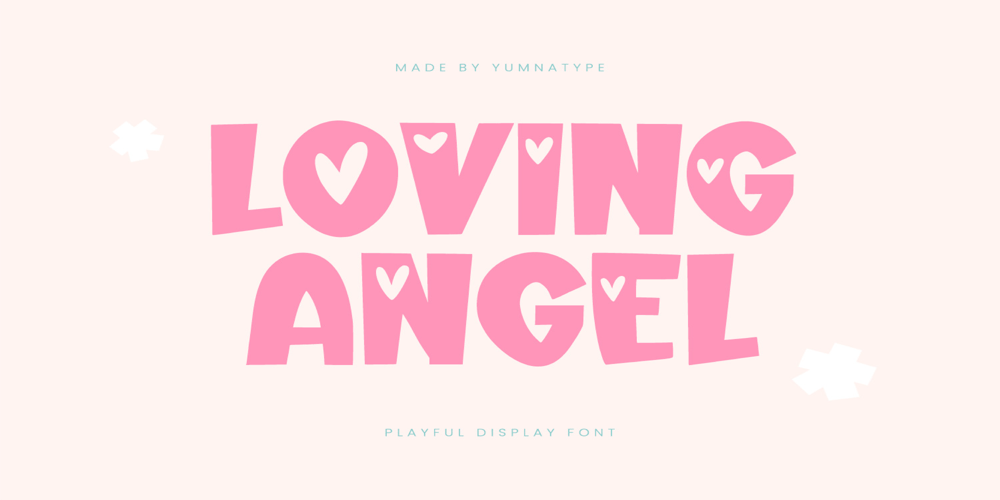
Loving Angel
Loving Angel font
Loving Angel Font Family was designed by Donis Miftahudin and published by Yumna Type. Loving Angel contains 1 styles and family package options. Introducing Loving Angel, a charming display font that embodies the warmth and innocence of celestial beings. Crafted with large letters, this font radiates joy and sweetness, making it the perfect choice for projects that seek to inspire love and positivity.Loving Angel enchants with its playful style and rounded shapes, evoking a sense of childlike wonder and innocence. Each letter is meticulously designed to capture the whimsy of angelic beings, with rounded forms that invite viewers to embrace the magic of the moment. With its thick weight and low contrast, Loving Angel commands attention and ensures that your message is conveyed with clarity and confidence. In addition, enjoy the features here.Features: Ligatures Multilingual Supports PUA Encoded Numerals and Punctuations Loving Angel fits in headlines, logos, posters, flyers, branding materials, greeting cards, print media, editorial layouts, and many more designs. Find out more ways to use this font by taking a look at the font preview.Thanks for purchasing our fonts. Hopefully, you have a great time using our font. Feel free to contact us anytime for further information or when you have trouble with the font. Thanks a lot and happy designing.